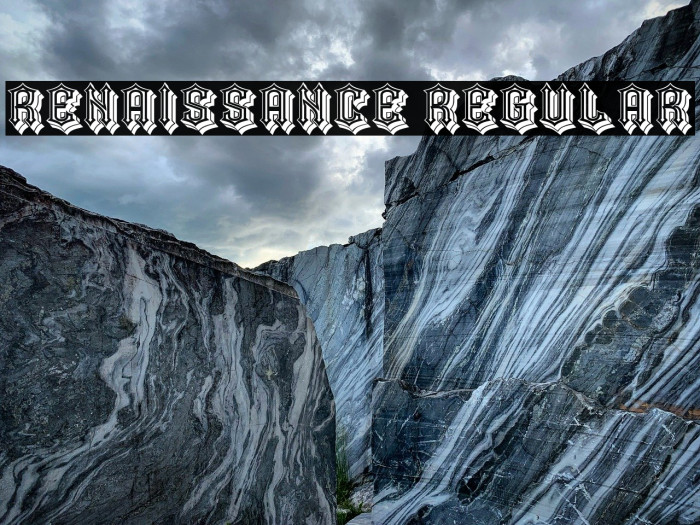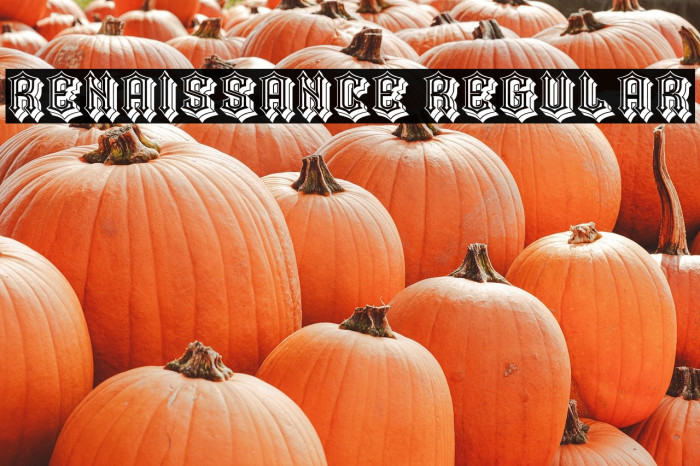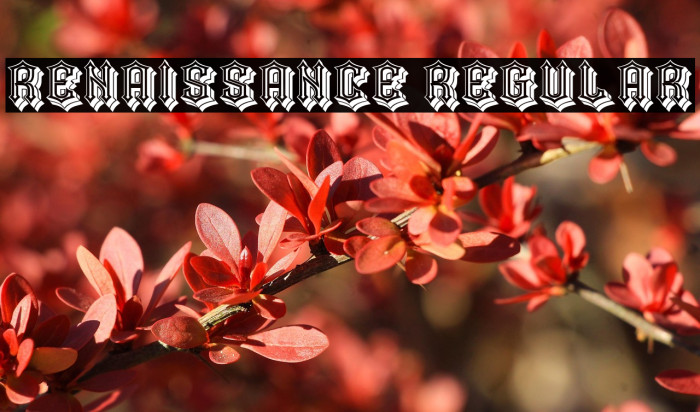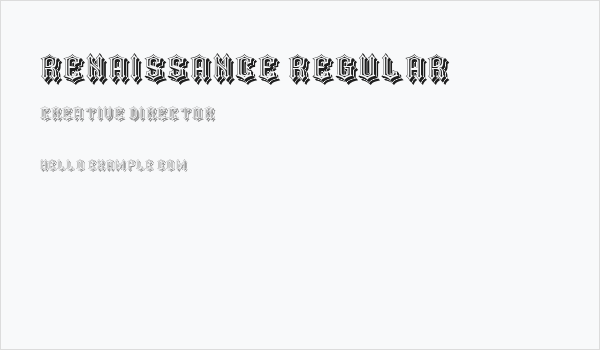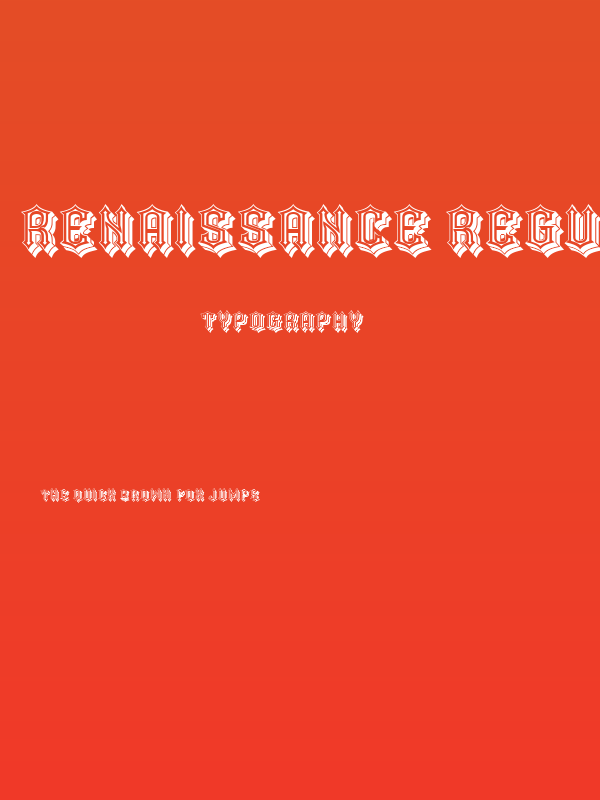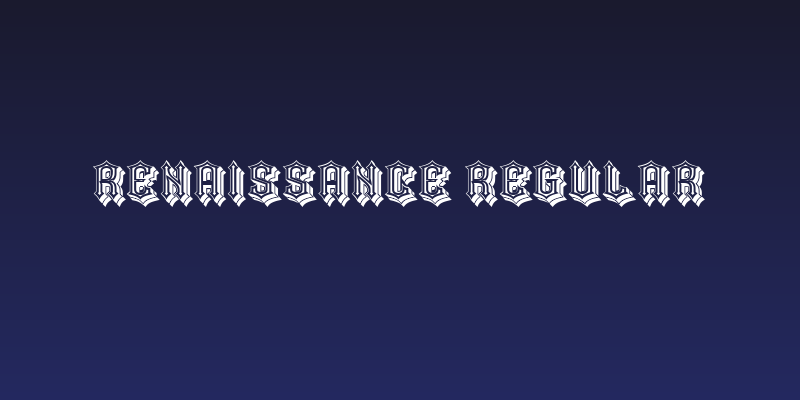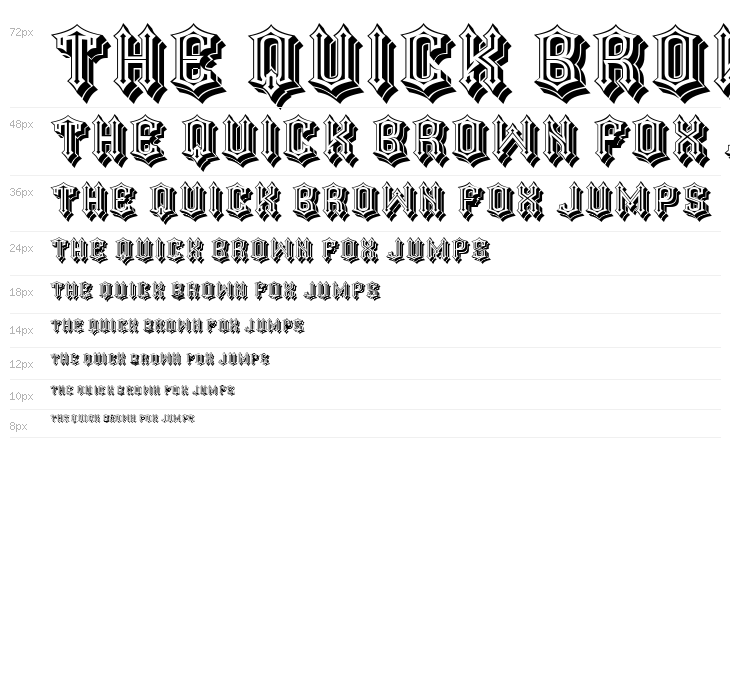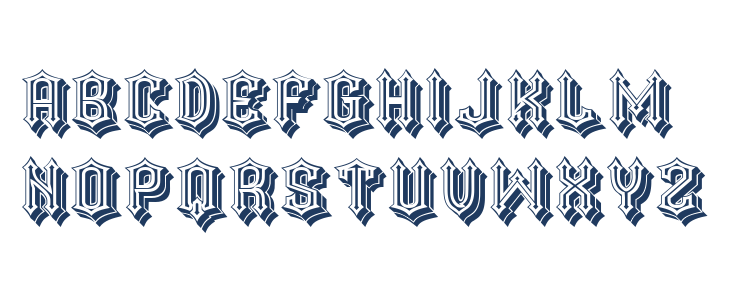
Renaissance Regular Font
Renaissance Regular Description
This font features a bold and intricate design reminiscent of historical and gothic styles. Each character is crafted with a high level of detail, incorporating sharp edges and decorative elements that evoke a sense of grandeur and tradition. The font's three-dimensional appearance is achieved through the use of shadowing and layering, giving it a striking and impactful look. The uppercase letters are particularly elaborate, with ornate serifs and embellishments that enhance their visual appeal. This font is ideal for projects that require a touch of elegance and historical flair.
Overall StyleVintage
Use CaseHeadlines, Logos, Decorative elements
Proposed ProjectsIdeal for historical-themed designs, book covers, posters, and branding that requires a classic and sophisticated touch.